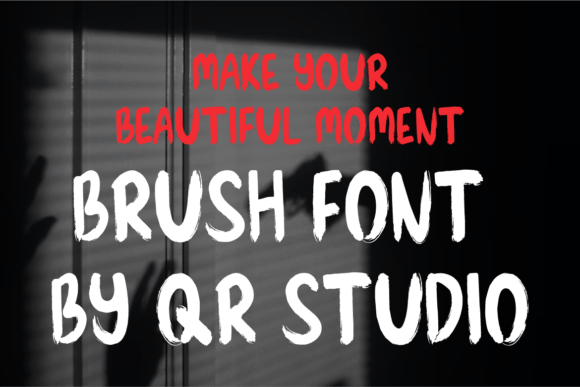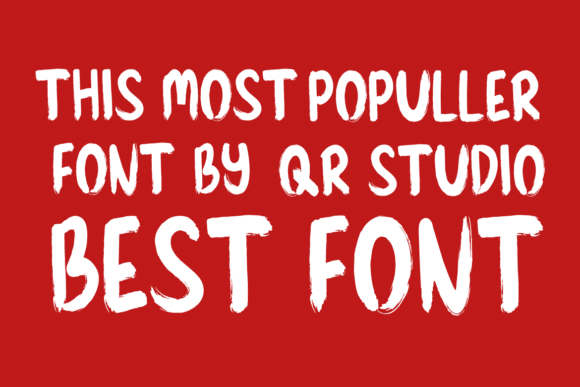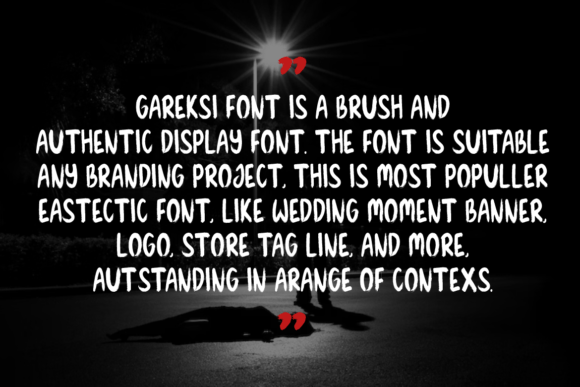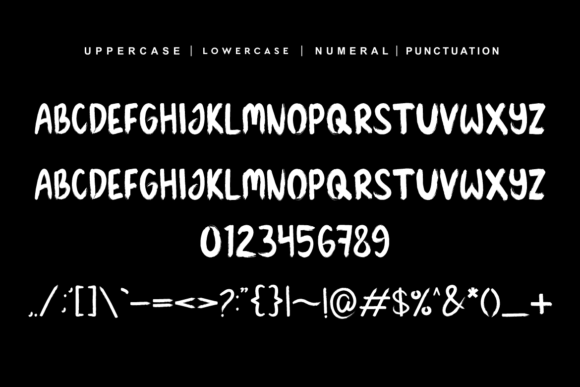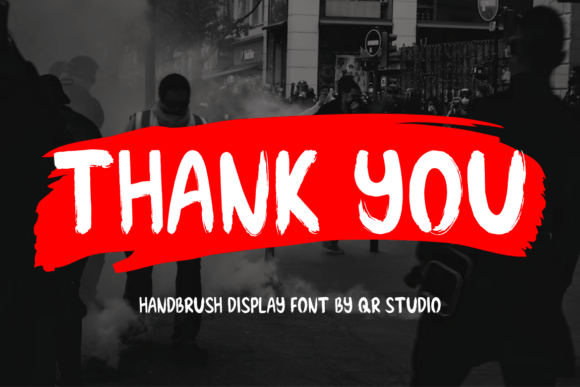
Introduction to Gareksi Font
As a designer, you’ve been there – staring at a blank canvas, searching for the perfect font to bring your creative project to life. The words “free download” and “high quality” dance in your head, but you’re not sure where to start. That’s where the Gareksi Font comes in – a modern and cool brush display font that adds a touch of artistic flair to your designs.
With its textured brush strokes and bold letterforms, the Gareksi Font creates a sense of energy and movement that’s perfect for attention-grabbing headlines, logos, and posters. Whether you’re working on a design project that requires a transparent background or just need a versatile font to add a contemporary edge, the Gareksi Font is an excellent design resource that’s sure to impress.
Key Features of Gareksi Font
- Unique and creative design suitable for various projects, from digital to print media.
- Comes in a transparent background, making it easy to integrate with any design.
- High-quality font with detailed, intricate designs, ideal for designers and artists.
Honest Review: Gareksi Font
As a designer, I’m always on the lookout for high-quality design resources to elevate my creative projects. Recently, I came across the Gareksi Font, and I was excited to give it a try.
- ✨ The font’s sleek and modern design is perfect for contemporary branding projects.
- ✨ The Gareksi Font comes in a range of weights and styles, making it versatile for various design applications.
- ⚠️ The font doesn’t support transparent backgrounds, which may limit its use in certain design scenarios.
- ⚠️ The font family is relatively small, so it may not be suitable for large-scale design projects.
Overall, I’m impressed with the Gareksi Font’s high quality and modern design aesthetic. While it may have some limitations, it’s an excellent choice for designers working on smaller-scale projects or those looking for a free design resource. With its sleek design and free download option, the Gareksi Font is definitely worth checking out.
Tips for Getting the Most Out of Gareksi Font
To get the most out of the Gareksi Font, use it with a transparent background to create a clean and modern design. Experiment with different font sizes and styles to add depth and interest to your project.
The Gareksi Font is suitable for a variety of creative projects, including logos, branding materials, and marketing materials. It’s also great for use in presentations, reports, and other documents where a professional and stylish font is required.
Is the Gareksi Font suitable for high-resolution designs?
Yes, the Gareksi Font is designed to be highly legible at various resolutions, making it suitable for high-resolution designs. The font features a clear and crisp appearance, even when used in large sizes or on high-resolution displays. Additionally, the font’s transparent background allows for easy layering and blending with other design elements, making it a valuable resource for designers.